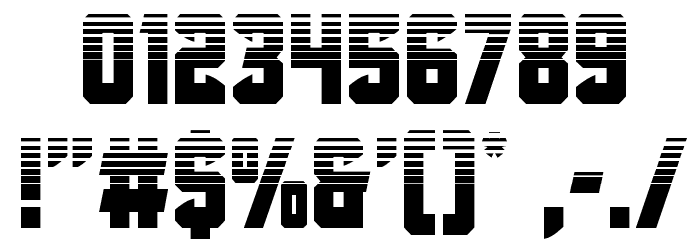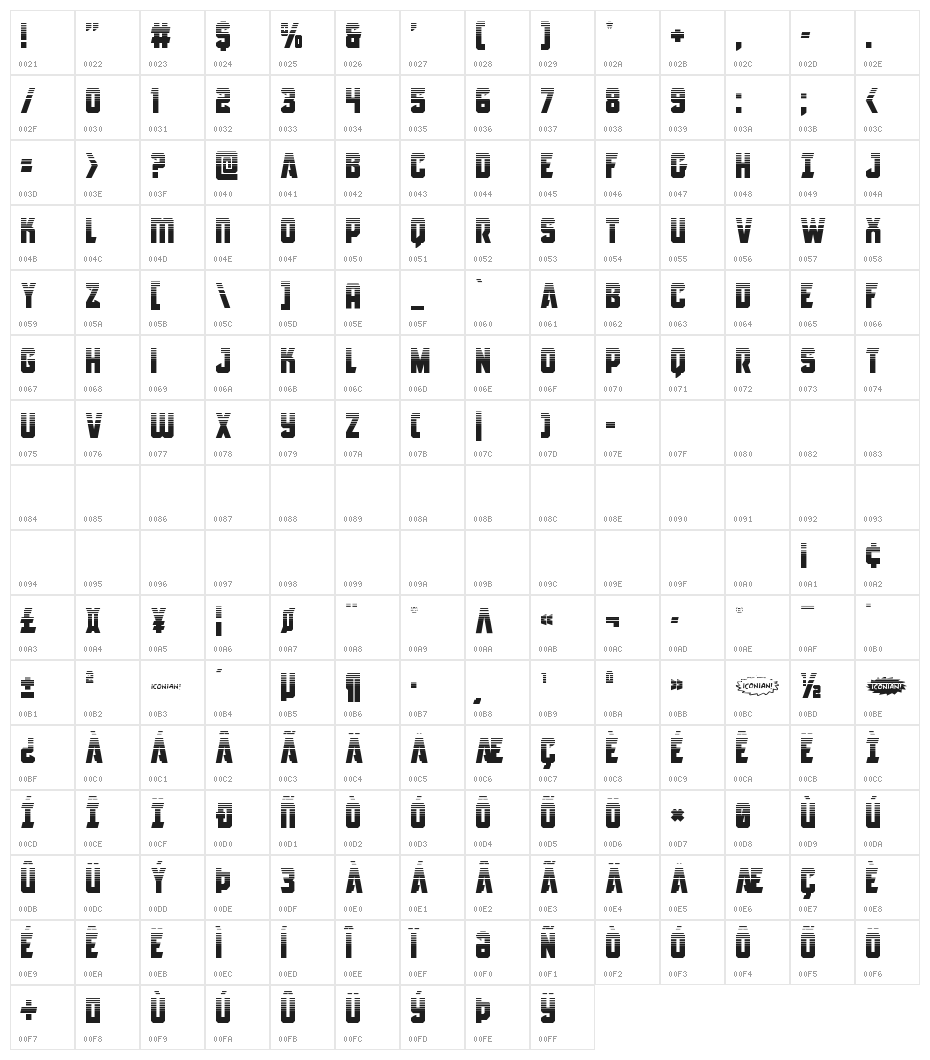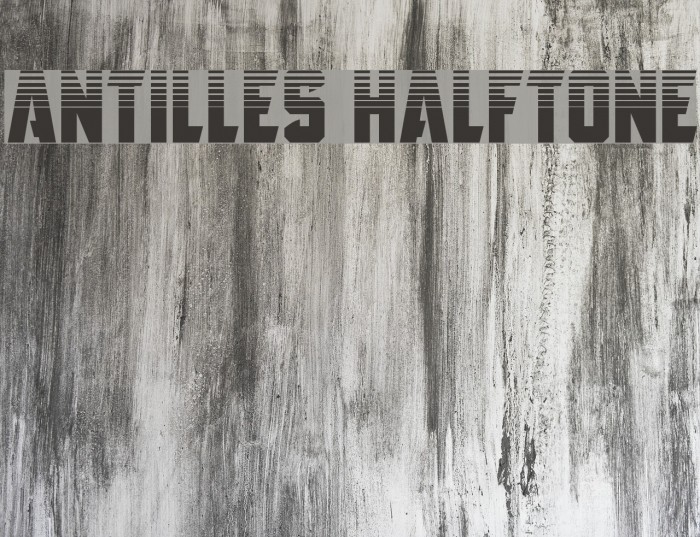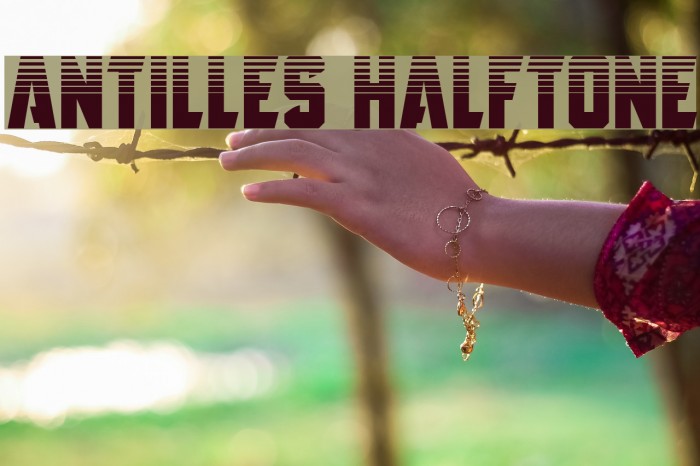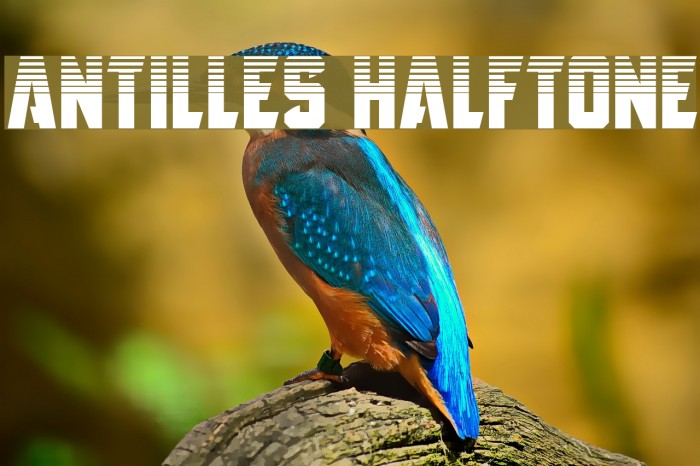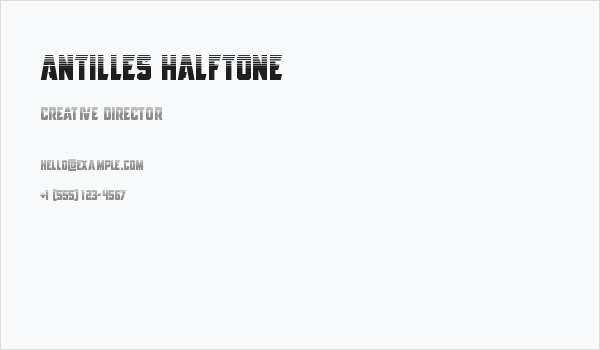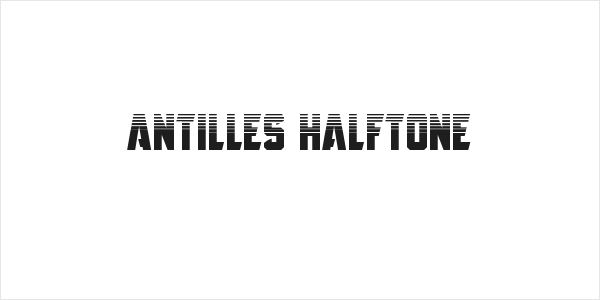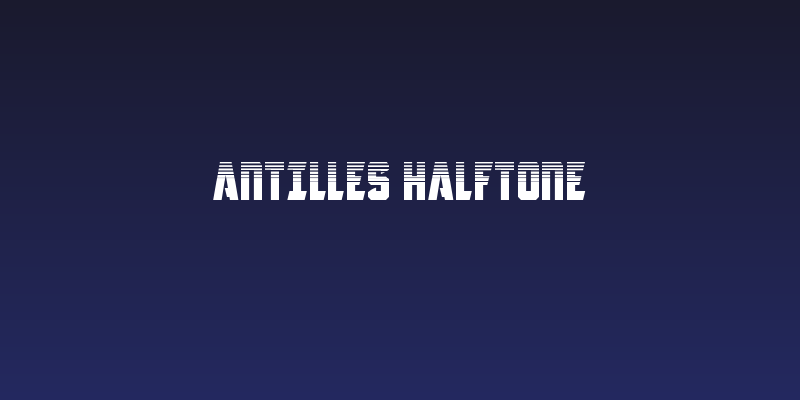
Antilles Halftone Font
Antilles Halftone Description
This font features a bold, geometric design with a distinctive halftone pattern that creates a sense of movement and depth. The uppercase letters are characterized by strong, angular lines and a unique striped effect that gives a modern, industrial feel. The numbers and special characters follow the same design principles, ensuring consistency across all glyphs. The font's boldness and unique style make it ideal for attention-grabbing headlines and display purposes.